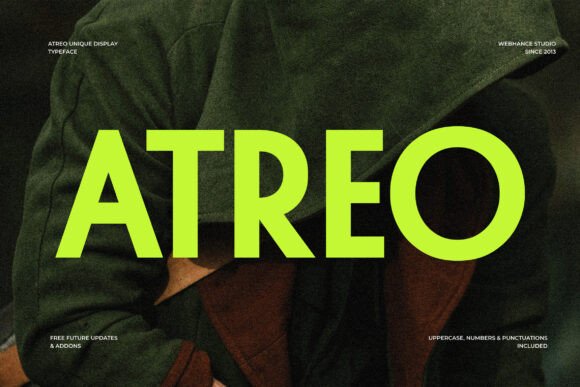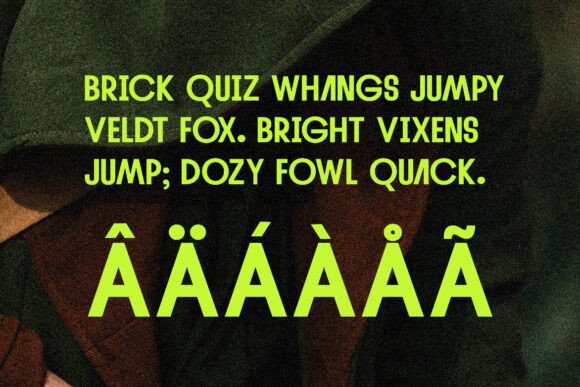
Atreo Font: Modern Sans Serif for Clean Branding & UI/UX Design
About the Atreo Font
The Atreo Font is here to transform your projects with its distinctive character and style. The Atreo font family is a contemporary sans-serif typeface designed for versatility and elegance. With its clean lines, balanced proportions, and minimalist aesthetic, Atreo ensures high readability across various mediums. Whether used for branding, editorial design, UI/UX interfaces, or print, this font brings a refined, world-class look to your projects.
Atreo excels in headline applications, branding materials, and short-form text where its elegant simplicity shines. Its clean lines make it ideal for logos, posters, and packaging design, conveying a sense of modern sophistication. However, its minimalist nature means it’s less suitable for lengthy body text or UI elements requiring high readability at smaller sizes.
Atreo’s core personality is sophisticated and refined, yet approachable. It projects a sense of calm confidence, making it a strong choice for brands aiming for a timeless and credible image. Think high-end fashion, luxury goods, or architectural firms.
Pairing Atreo with a warm serif like Garamond for body copy creates a balanced contrast; for a more modern feel, consider pairing it with a geometric sans-serif like Futura. A script font like Playfair Display can add a touch of luxury for specific applications like invitations or signature elements.
Atreo Font Usage Examples